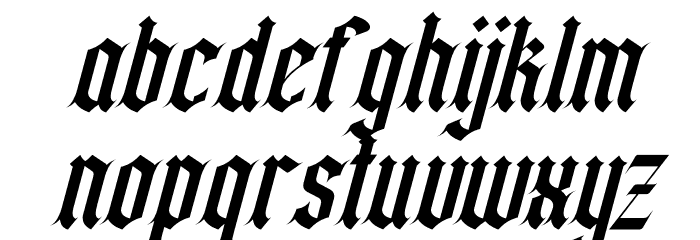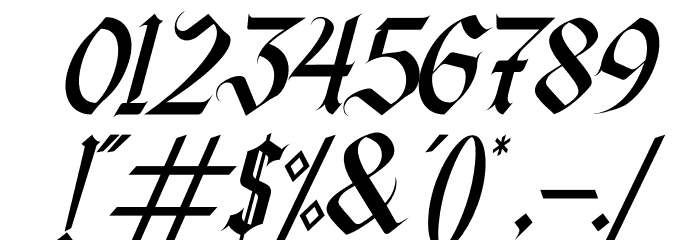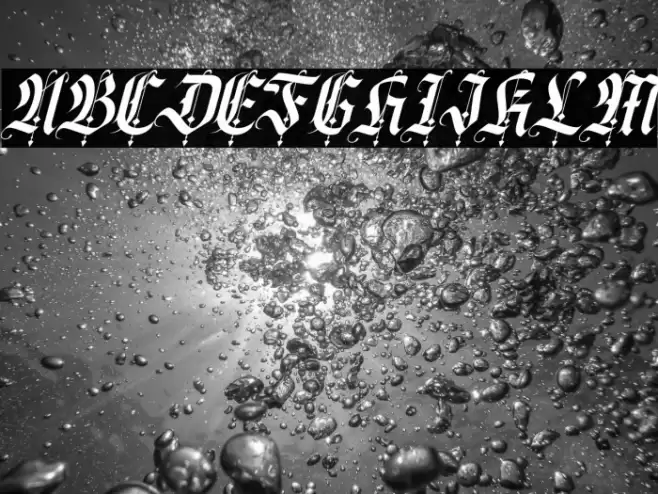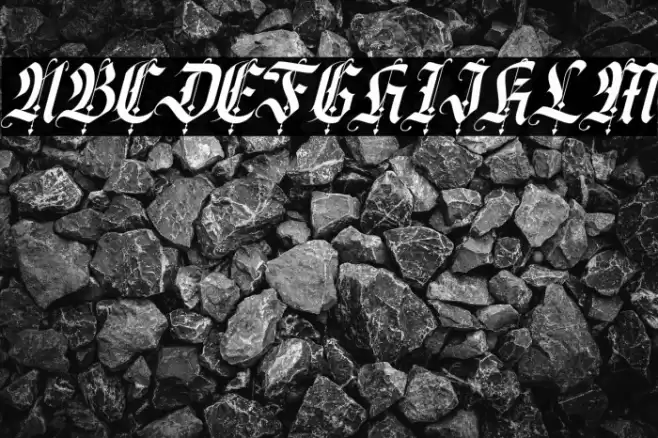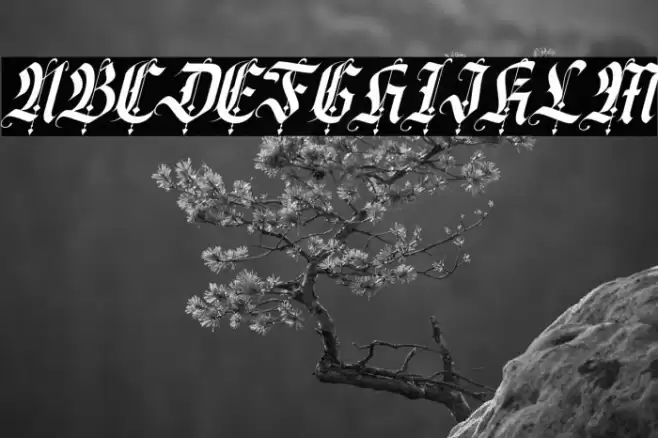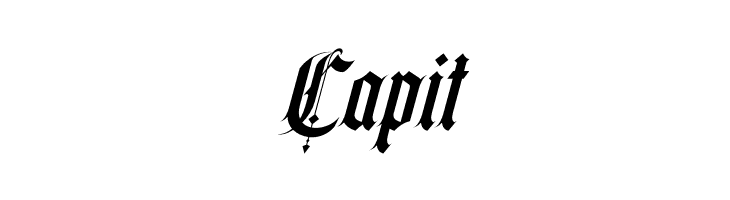
California sun Italic Font
This font features a striking blackletter style with intricate, sharp edges and dramatic flourishes. The uppercase letters are ornate with elaborate serifs, while the lowercase letters maintain a consistent angularity that enhances readability despite the decorative elements. The numbers and special characters follow the same stylistic cues, ensuring a cohesive appearance across all glyphs. The overall design is reminiscent of medieval script, exuding a sense of tradition and formality. This font's bold strokes and high contrast make it particularly eye-catching, suitable for projects that require a strong visual impact.
A bold, blackletter-style font with high contrast and ornate details.
- Proposed Projects: Ideal for use in branding, posters, book covers, and any design that seeks to evoke a historical or gothic aesthetic.
- Category: Blackletter
- Overall Style: Vintage